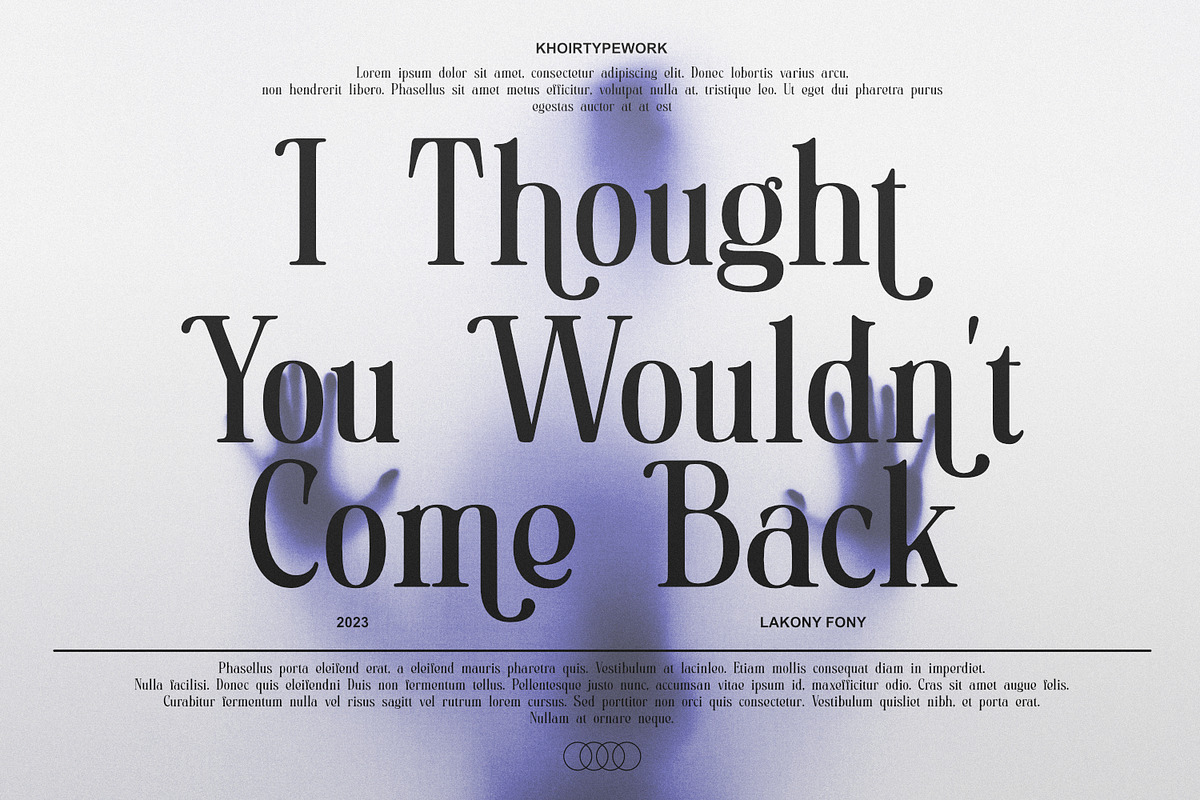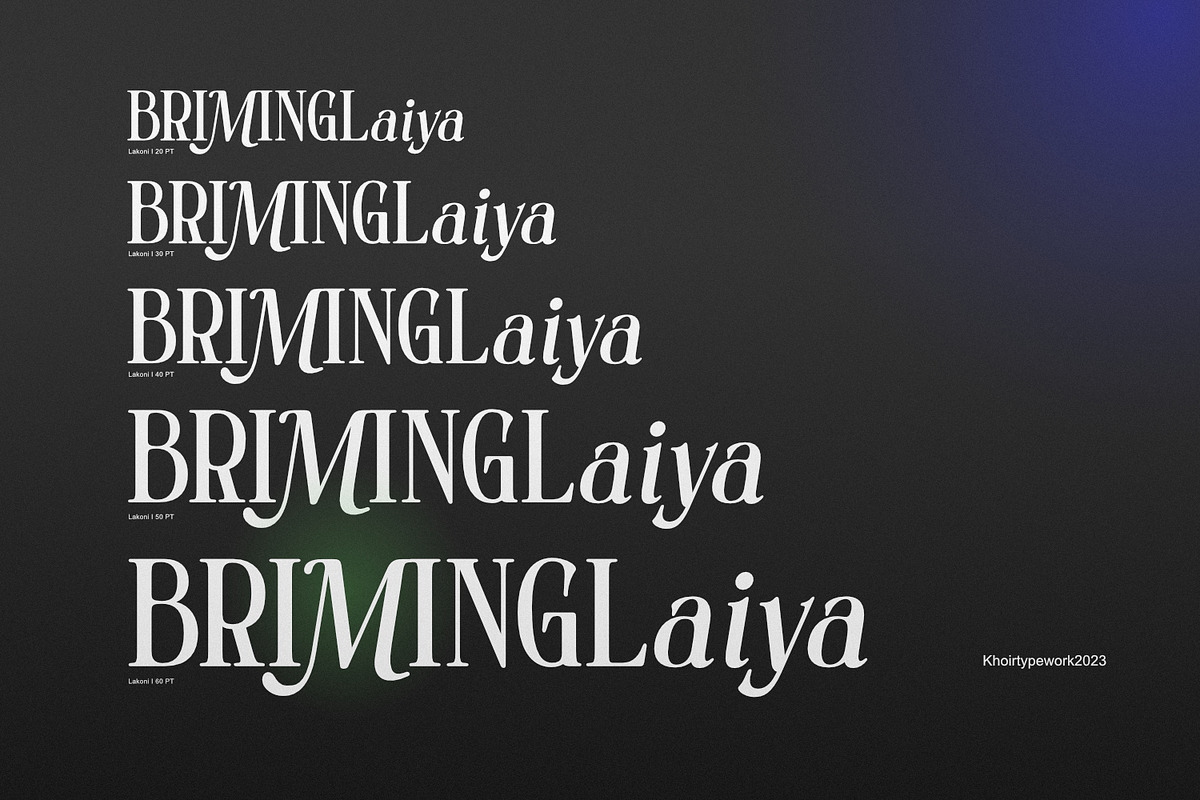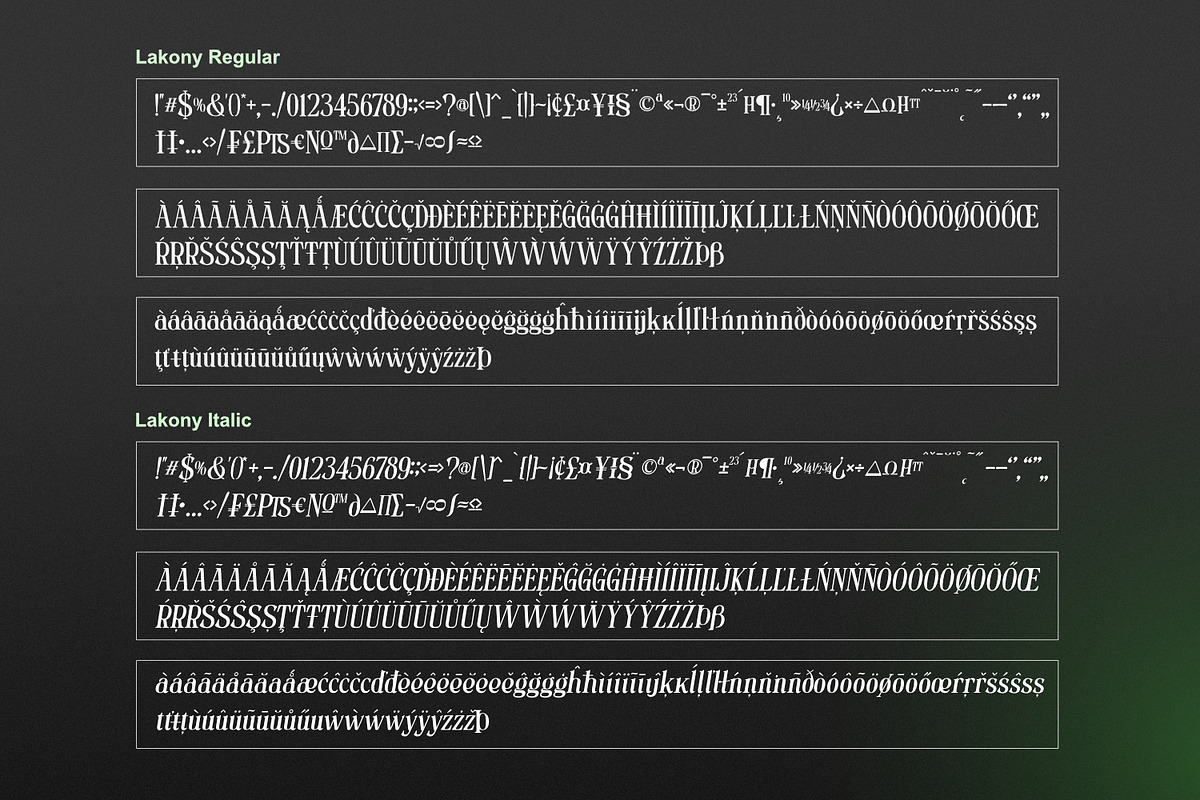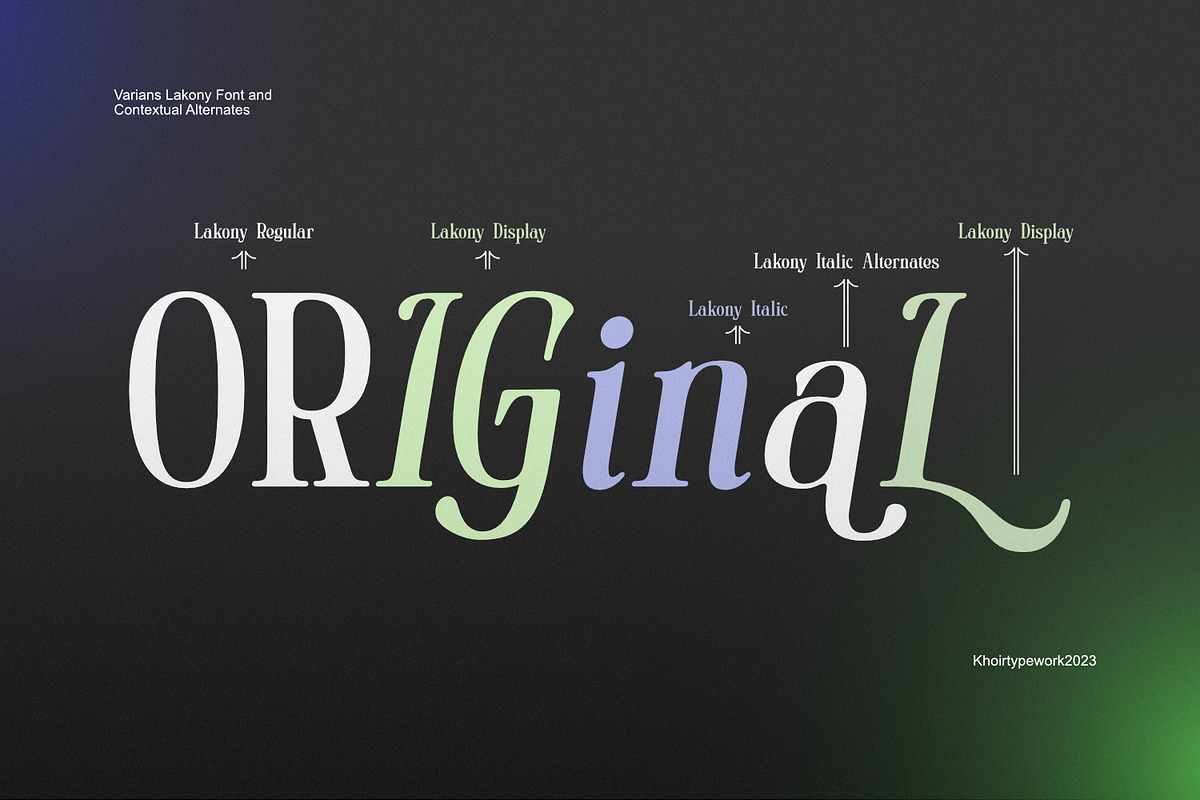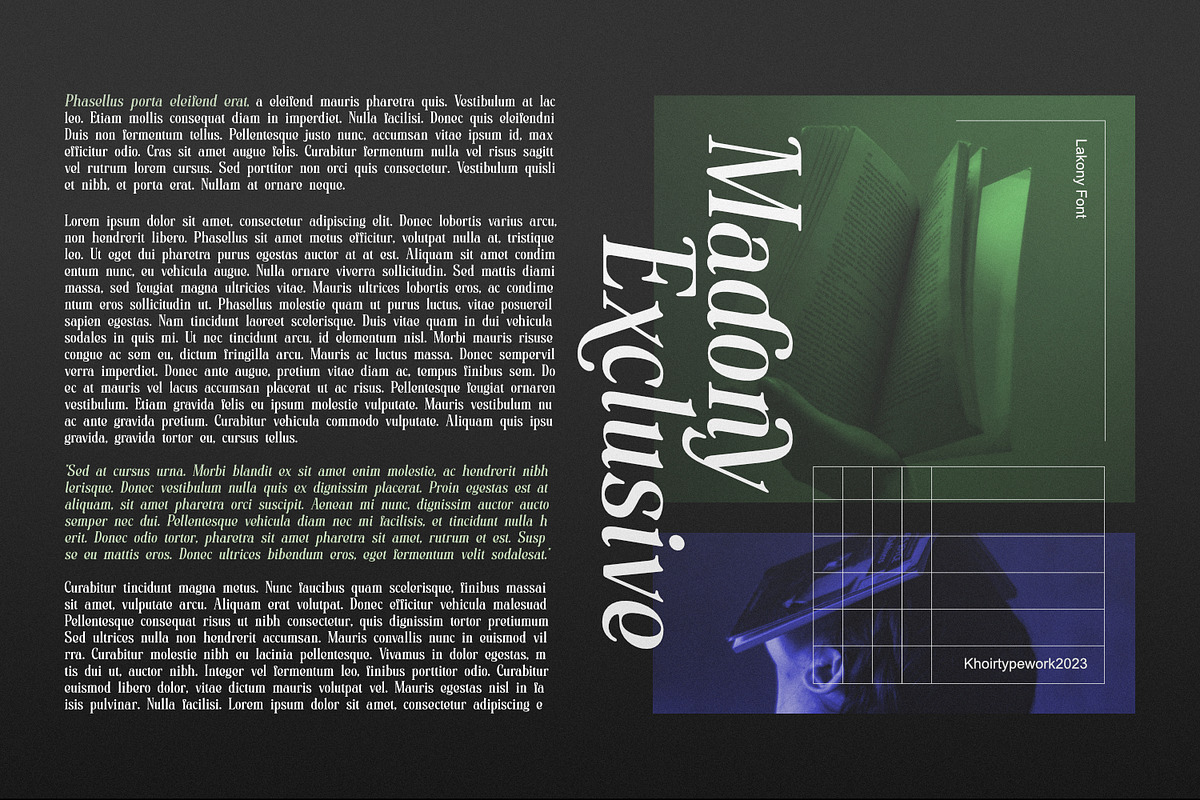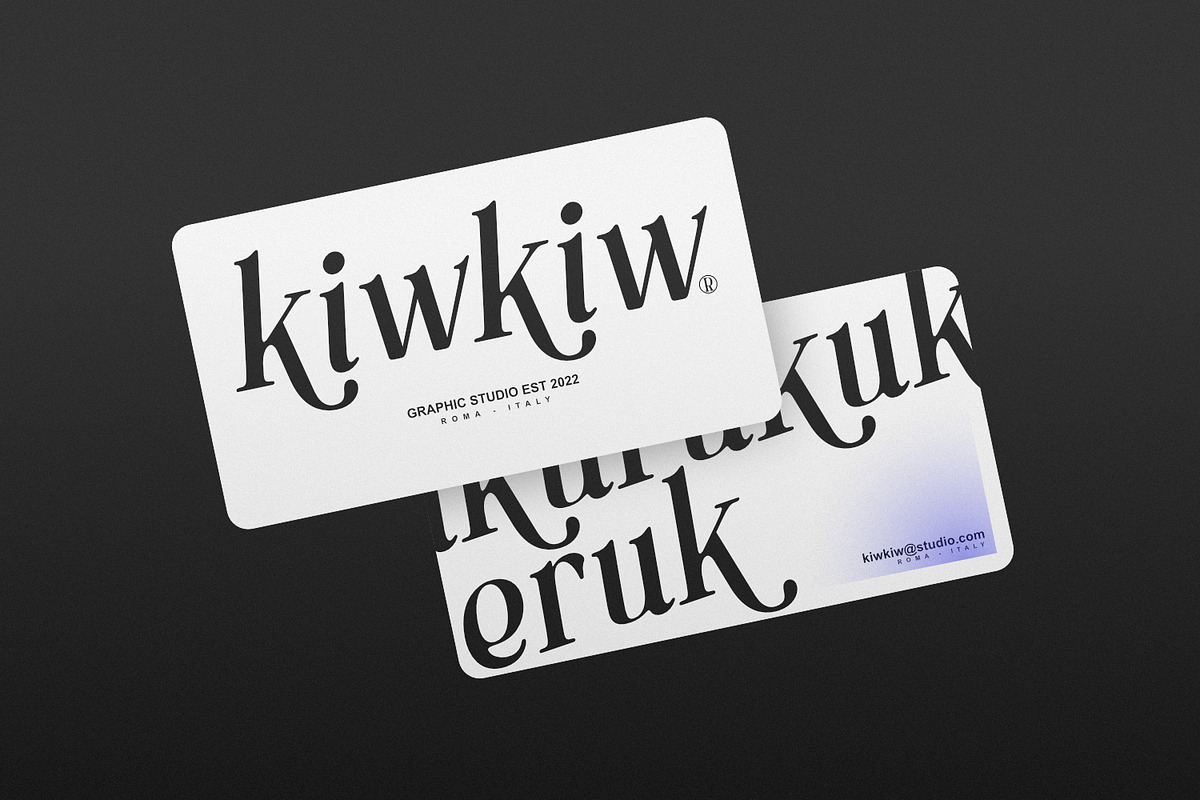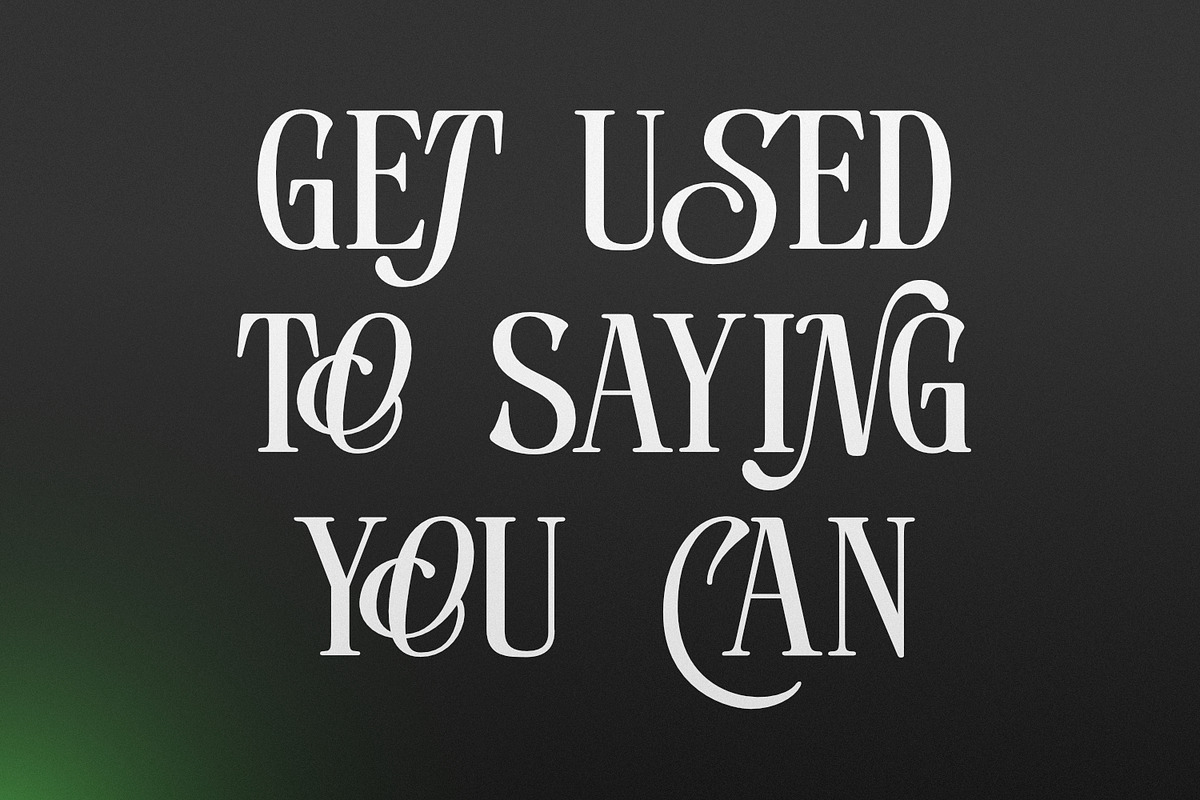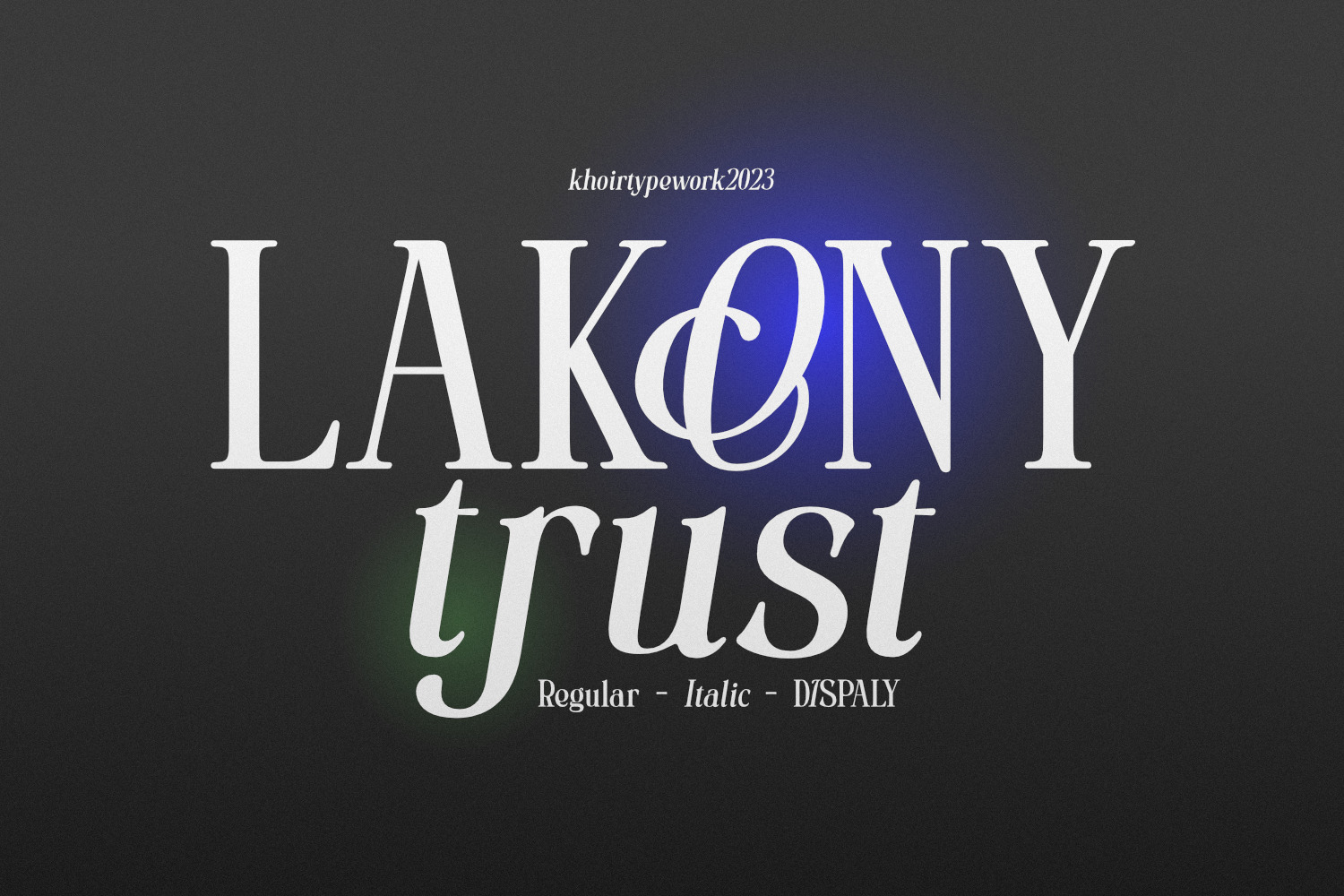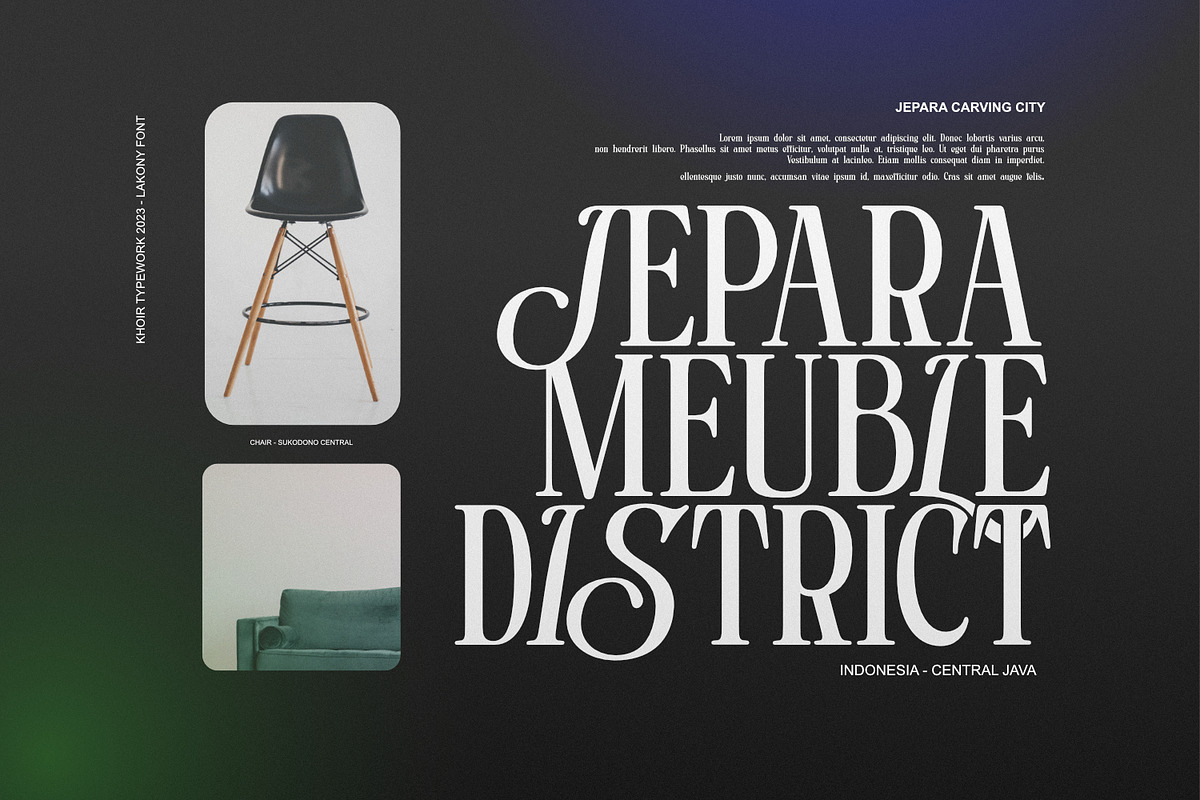
Lakony - Serif Font Combinations
Lakony Regular, italic and display serif lacony are combined into one into a modern serif, lacony pays attention to high readability and a soft font model so that readers feel comfortable. lakony font also has unique alternates, making it easier for you to design as unique a text as possible. However, this does not leave behind the function of the font itself, namely readability, so this font is suitable for titles, posters, branding, invitation cards and much more.
- 75+ Language
- Alternates Font